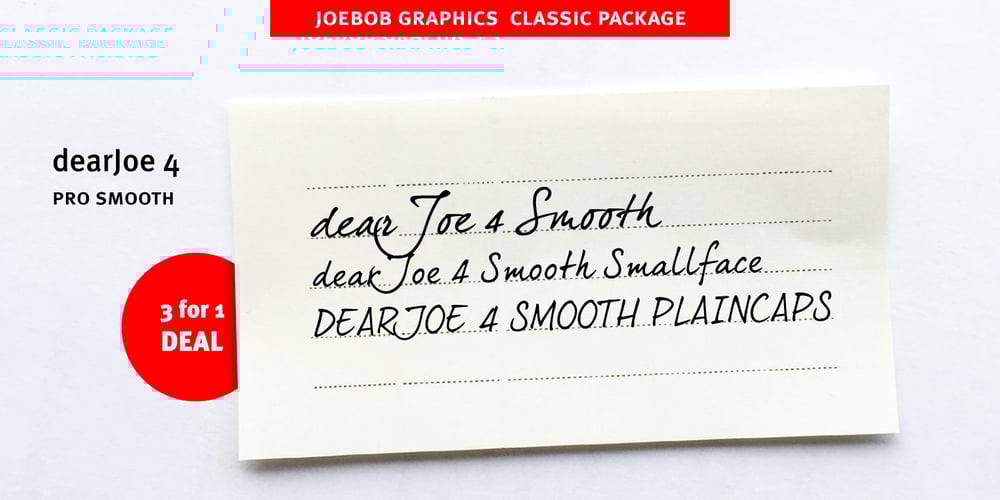
DearJoe 4 Smooth Font Family was designed by Jeroen “Joebob” van der Ham and published by JOEBOB graphics. DearJoe 4 Smooth contains 3 styles and family package options. DearJoe 4 was made around 2005 as the fourth in a list of fonts that I revisit every once in a while in an attempt to create something that comes as close as possible to my own handwriting at that time. As my handwriting evolves, so does the font and the later versions all include new features such as new special signs and Cyrillic and Greek glyph sets. DearJoe 4 comes as a set of 5 fonts: The regular version, which has a bit jagged edges just like one would see when looking at ballpoint writing up close, a Plaincaps version, a Smallface version (also in Bold) and the first (classic) render of the font which is the least doctored and has the roughest edges. These 5 fonts come together as a Classic package.